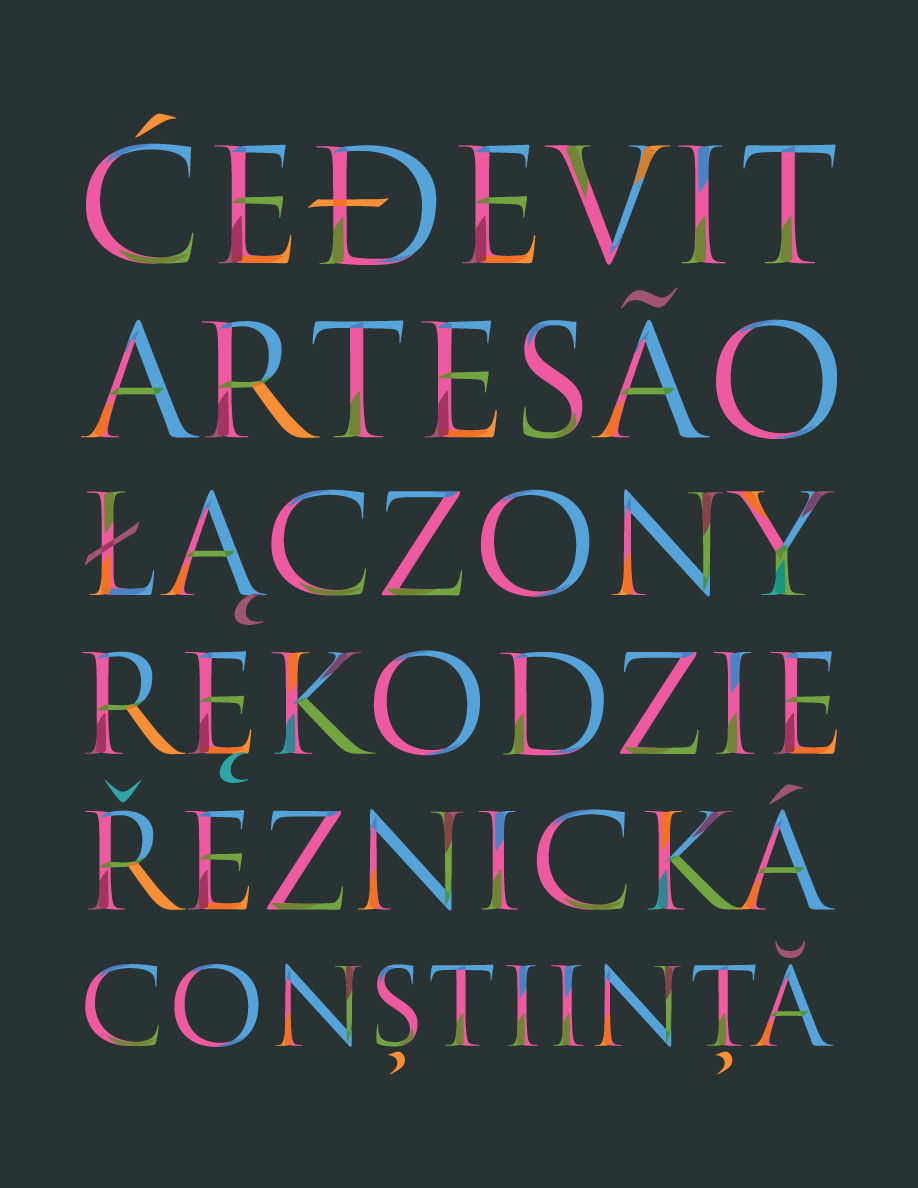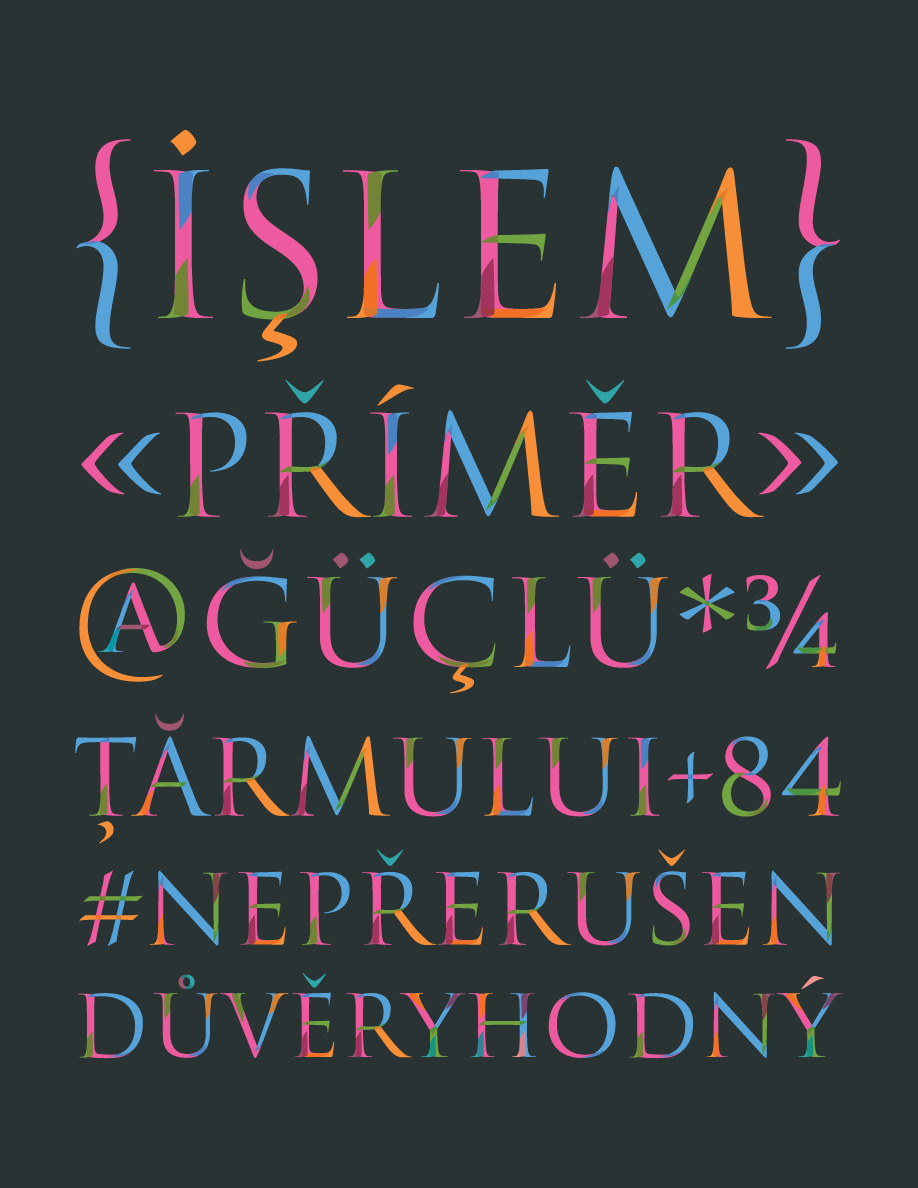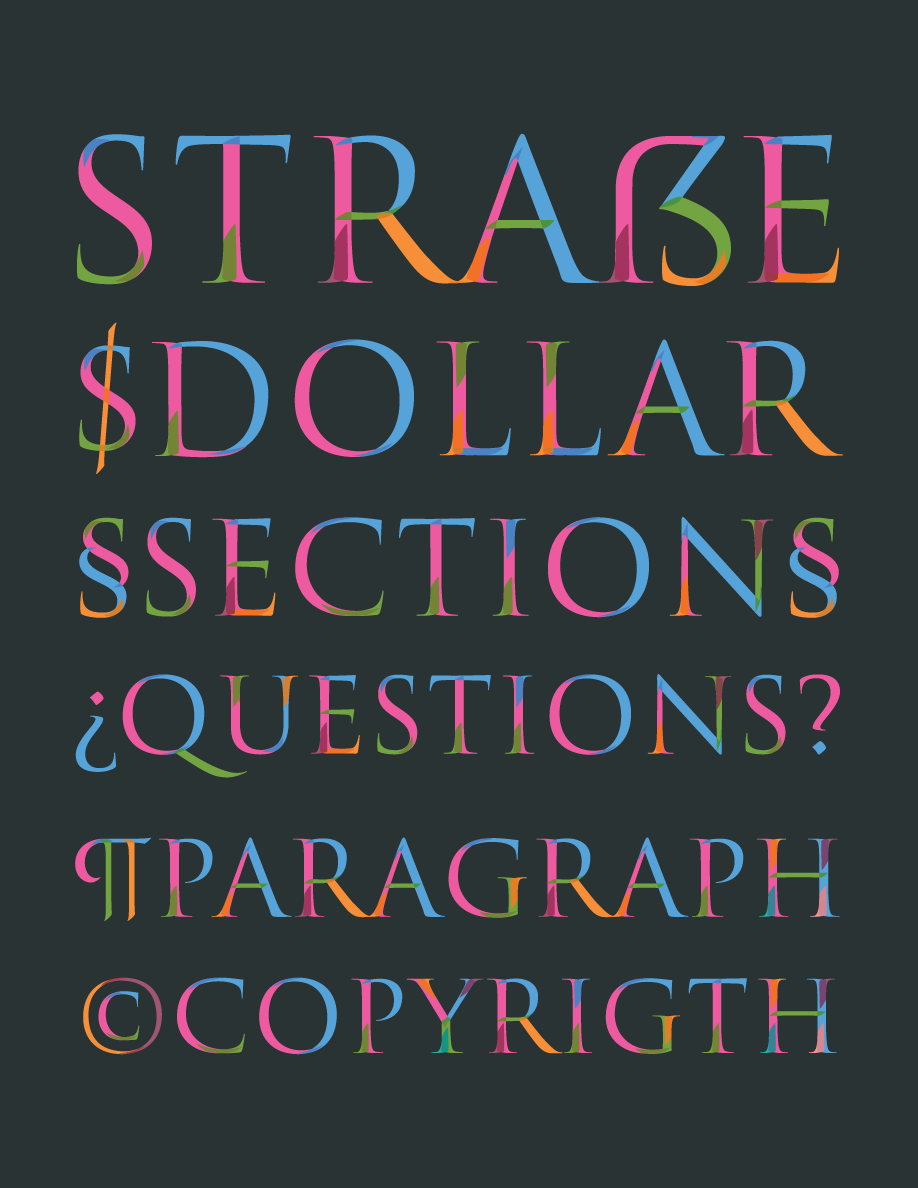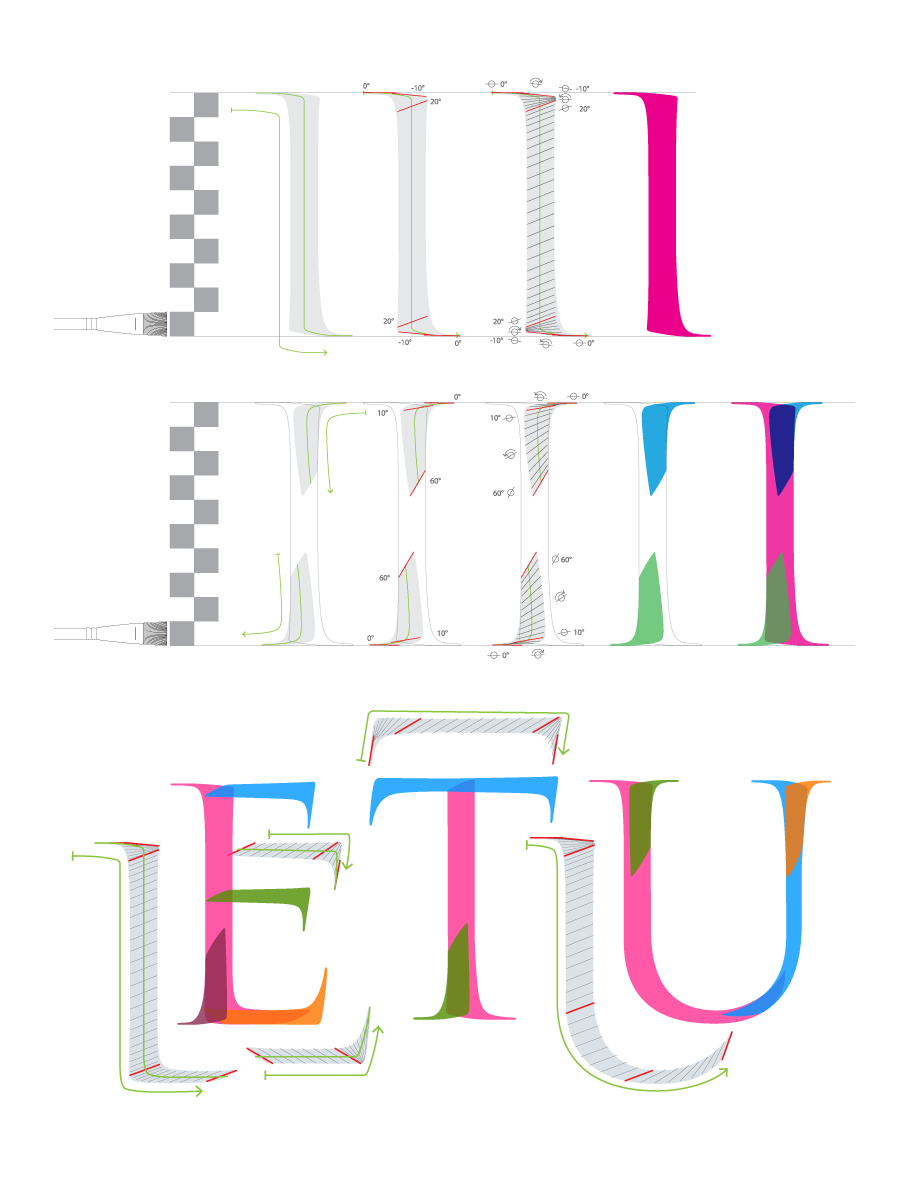
Catich Color
This projectisa color font developed as an educational and exploratory tool for understanding Roman Capitals through stroke construction. The letterforms are generated from the author brush strokes, executed according to the method established by Father Edward C.
Father Edward C.’s investigations into classical Roman inscriptions revealed that their forms were first shaped through brush strokes, not carving. By carefully studying enlarged photographs and physical impressions of the capitals on Trajan’s Column, he exposed the calligraphic decisions embedded in what had long been considered purely sculptural work. His findings continue to influence how designers read proportion, rhythm, and contrast in the Roman alphabet.
The family includes solid and grayscale versions, along with stylistic sets that display outlines and proportional guides.